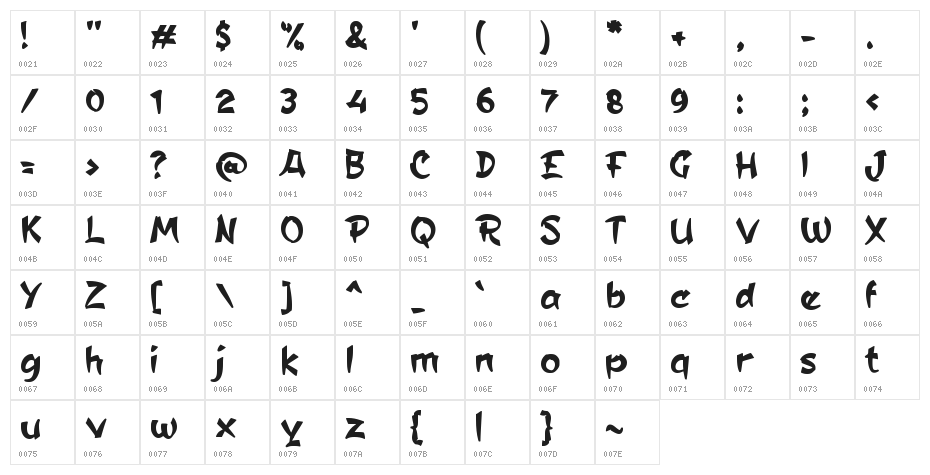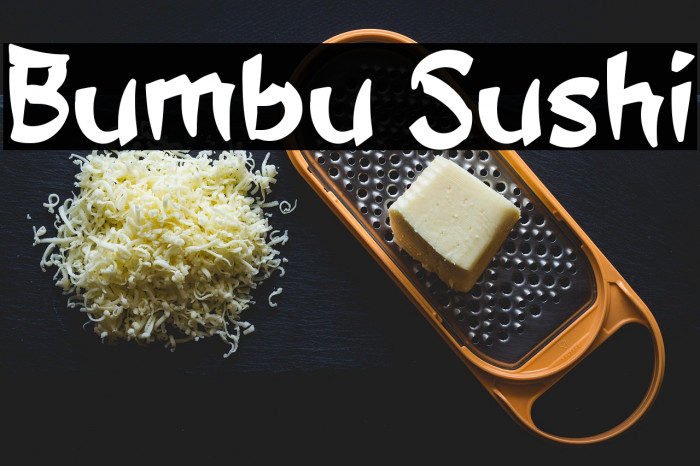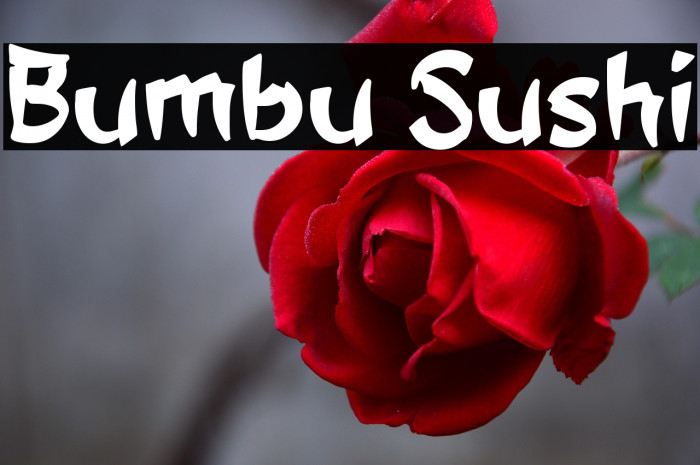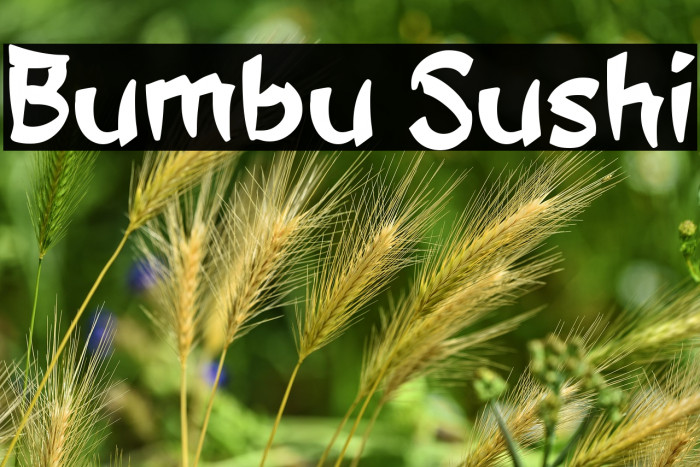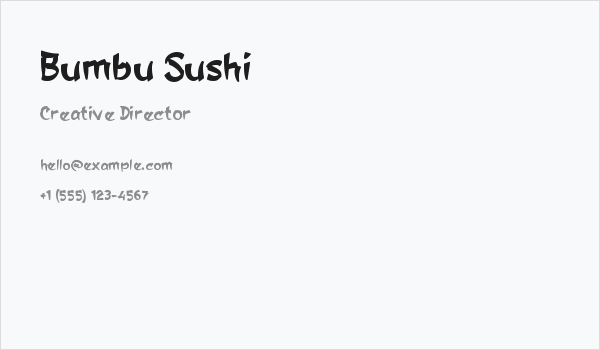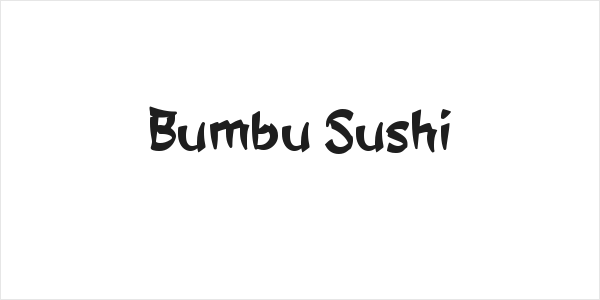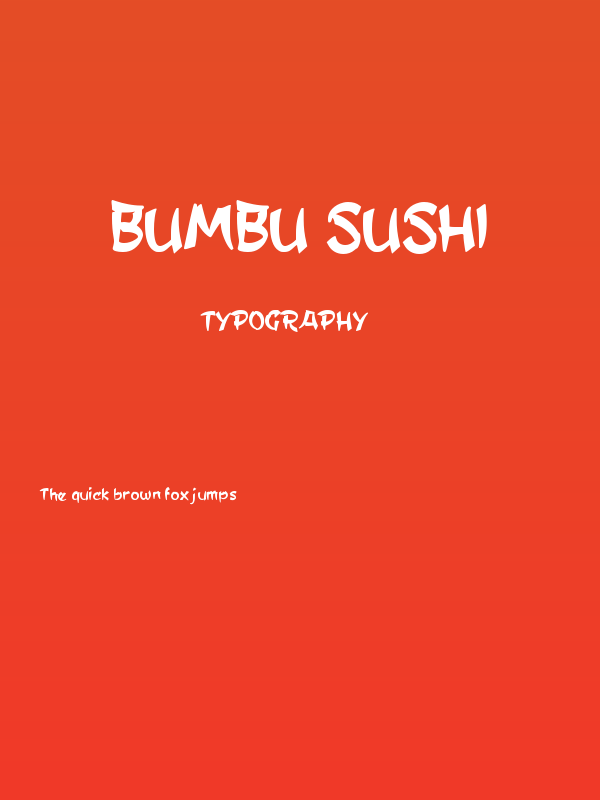
Bumbu Sushi Font
Bumbu Sushi Description
This font features a bold and dynamic style with a hand-drawn appearance, characterized by its thick strokes and playful curves. The letters have a slightly irregular form, adding to the casual and artistic feel. The uppercase and lowercase letters maintain a consistent style, with the uppercase being more pronounced. Numbers and special characters are designed to match the overall aesthetic, making them suitable for creative and informal applications. The font's unique style makes it ideal for projects that require a touch of personality and flair.
| Proposed Projects | Ideal for posters, branding, packaging, and creative design projects that require a bold and artistic touch. |